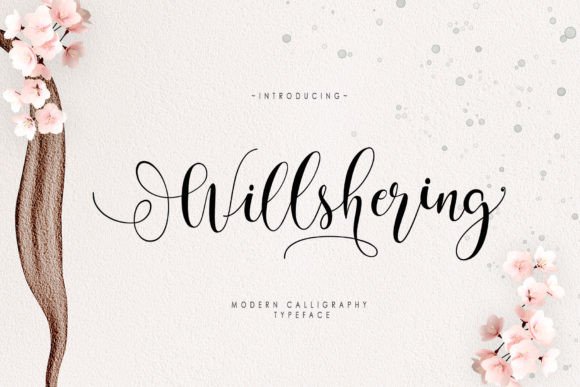
Will Shering: A Font Duo for Modern Creatives
In a digital landscape saturated with generic typefaces, finding a voice that feels both authentic and professional is the ultimate challenge for any designer or brand. This is where Will Shering steps in, offering more than just a set of letters; it provides a distinct personality that bridges the gap between structured design and expressive artistry. The duo consists of Will Shering Sans and Will Shering Script, two complementary styles that work together to tell a story without needing a single word of explanation.
The appeal of this font pair lies in its versatility. It is not merely about aesthetics but about functionality. For entrepreneurs, bloggers, and small business owners, the ability to switch from a clean, readable sans-serif to a fluid, handwritten script can transform how an audience perceives their message. It allows for a hierarchy of information that feels natural rather than forced. When you are designing a logo, creating social media graphics, or formatting a long-form article, having access to a typeface family that maintains consistency while offering contrast is invaluable.
The Power of Contrast in Design
The core strength of the Will Shering system is the interplay between its two components. Will Shering Sans serves as the backbone of your communication. It is characterized by clean lines, open apertures, and a modern geometric structure that ensures high legibility across various screen sizes. Whether you are setting body text for a blog post or creating headlines for a marketing campaign, the sans version provides the stability needed to ground your content.
Conversely, Will Shering Script introduces the human element. It mimics the flow of a pen on paper, adding warmth and individuality to designs that might otherwise feel sterile. This script style is not a rigid calligraphy piece but a dynamic tool that suggests movement and emotion. By pairing these two, designers can create visual interest that guides the viewer's eye naturally through the content. The script draws attention to key phrases, quotes, or calls to action, while the sans-serif handles the heavy lifting of information delivery.
- Brand Identity: Use the script for logos or signatures to add a personal touch, while keeping the sans-serif for taglines and contact details.
- Editorial Layouts: Employ the sans for main articles and use the script for pull quotes or section headers to break up dense text.
- Social Media: Create templates where the script highlights the hook of the post, ensuring engagement even in a fast-scrolling feed.
Practical Applications for Different Audiences
Different professionals approach typography with unique goals, yet the Will Shering duo adapts seamlessly to each context. For educators and publishers, clarity is paramount. They can utilize the sans variant for educational materials, worksheets, and textbooks, ensuring that complex information remains accessible. The script can then be used sparingly for emphasis, perhaps highlighting important dates, names, or inspirational quotes within the curriculum.
Freelancers and creative agencies often need to demonstrate their unique style quickly. Using Will Shering in pitch decks or portfolio presentations can instantly elevate the perceived value of their work. It signals that the creator understands the nuance of pairing fonts and values a cohesive visual language. Marketers, too, benefit from this duality. In email newsletters, the script can personalize the subject line or the greeting, making the recipient feel like they are reading a letter from a friend rather than a corporate blast.
Hobbyists and DIY enthusiasts find this font pair particularly useful for crafting projects. From custom t-shirts and stickers to wedding invitations and party decor, the script adds a handmade feel that resonates deeply with audiences looking for authenticity. The sans version ensures that any necessary instructions or details remain crisp and easy to read, balancing the artistic flair with practical utility.
Building Consistency Across Platforms
One of the most significant hurdles in modern branding is maintaining consistency across different platforms. A website, a mobile app, a printed brochure, and a social media post all require slightly different typographic treatments. The Will Shering duo simplifies this process by providing a unified vocabulary. Because both fonts share a common DNA, they look like they belong together regardless of where they are applied.
To keep results clear and effective, it is essential to establish a usage guide. Decide early on which font will serve as the primary voice and which will act as the accent. Overusing the script can lead to readability issues, especially on smaller screens or when viewed from a distance. The goal is to enhance the message, not obscure it. By limiting the script to specific elements like headings, buttons, or short phrases, you maintain a professional standard while still enjoying the benefits of its expressive nature.
For small business owners, this consistency builds trust. When a customer sees the same harmonious pairing on a business card, a storefront sign, and an Instagram ad, it reinforces the brand's reliability. It shows attention to detail and a commitment to quality. This level of polish is often what separates a hobbyist project from a professional enterprise.
Ultimately, the success of any design project depends on how well it connects with its audience. Will Shering helps bridge that connection by offering a voice that is both contemporary and timeless. It allows creators to focus less on the mechanics of layout and more on the substance of their message. As you embark on your next creative endeavor, consider how this beautiful font pair can elevate your work, bringing clarity, style, and a touch of personal flair to everything you produce.